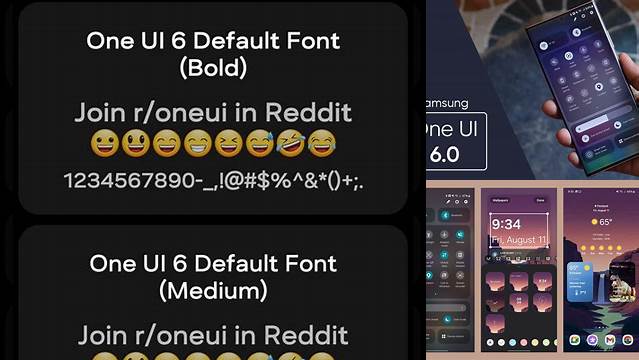
Hey guys! Are you ready to jazz up your Samsung Galaxy phone? If you're anything like me, you're always on the lookout for ways to personalize your device. And what better way to do that than by changing the font? Well, the One UI 6 font is here, and guess what? You can download it free! Let's dive into how you can get this sleek, new look and customize your phone to your heart's content. I'll show you how to download and use the font, plus give you some tips on making your phone truly your own. This article is your ultimate guide to the One UI 6 font, and it's all about making your phone experience as enjoyable as possible.
What is the One UI 6 Font? And Why You'll Love It
So, what's the deal with the One UI 6 font? Simply put, it's the new default font for Samsung devices running the latest One UI 6 update. Think of it as the face of your phone's interface. It's the text you see in your menus, apps, and notifications. The One UI 6 font is designed to be clean, modern, and easy on the eyes. Samsung has put a lot of thought into making the font both stylish and functional. The font has been improved with better readability, and enhanced aesthetics that improve the overall user experience. And believe me, this can make a huge difference in how you interact with your phone daily.
One of the best things about the One UI 6 font is how well it fits into the overall design language of the One UI 6 interface. It's not just about the font itself; it's about how it looks in the context of your entire phone. When you use this font, it works cohesively with the icons, widgets, and overall layout, resulting in a harmonious and pleasant visual experience. It's like getting a complete makeover for your phone's display. With the new font, you'll find that reading text on your phone feels more natural and less straining. Whether you're scrolling through social media, checking emails, or reading a book, the improved readability of the One UI 6 font makes everything more enjoyable. The design of the font is optimized for clarity, ensuring that text is easily discernible even in bright sunlight or low-light conditions. Plus, the font's design is optimized for various screen sizes, ensuring consistent readability whether you're using a compact phone or a large-screen tablet. This level of attention to detail significantly improves the user experience.
Another benefit is that using the One UI 6 font can boost your phone's aesthetic appeal. The sleek and modern look of the font can transform the look of your phone's interface, giving it a more premium feel. The new font provides a fresh and contemporary look that sets your device apart from others. By downloading and using this font, you're not just getting a functional upgrade but a visual enhancement that elevates the overall appeal of your phone. Customizing your phone's font can be a subtle way to express your personality and set your device apart. With the One UI 6 font, you can create a unique visual style that reflects your tastes and preferences. From casual users to tech enthusiasts, everyone can appreciate how a thoughtfully chosen font can significantly enhance their daily phone use experience. This also makes your phone feel more personalized, and it helps you create an interface that resonates with your personal style. The ability to change the font is a simple yet effective way to customize your device and add a personal touch to the user experience.
Tips for Customizing Your Phone with the New Font
Now that you've got the One UI 6 font installed, let's talk customization! You can do so much more than just change the font. Here are a few tips to really make your phone stand out.
- Pair it with a new theme: Don't stop at the font! Pair the One UI 6 font with a matching theme from the Galaxy Themes store. A good theme can change your wallpaper, icons, and overall interface, creating a cohesive look. You can browse through the themes to find one that complements the font. Look for themes that have a modern, clean design, or themes that feature custom icon packs. Experiment with different styles until you find one that feels right. The combination of a great font and a stylish theme can dramatically change your phone's look and feel. Be sure to try out various combinations to see what suits your taste. This can create a unified and visually appealing environment on your phone.
- Adjust the font size: Maybe the default size doesn't quite work for you. Go back to the font settings and adjust the font size to your preference. Make it bigger for easier reading or smaller to fit more text on the screen. Finding the right font size is about finding a balance between readability and aesthetics. Take time to play around with different sizes to find what works best for you. Keep adjusting until you find a setting that looks great and feels comfortable to read in all scenarios. The ability to adjust the font size helps accommodate different vision needs and preferences, making the font experience more user-friendly for everyone.
- Explore other font styles: While you're at it, don't hesitate to explore other font styles available in the Galaxy Themes store or through third-party apps. There might be a font that you like even better! Some fonts are specially designed for readability, others for style, and some for both. Try different fonts to see which one best suits your personal taste and use case. It can be fun to mix things up and try something new. Changing fonts can make your phone feel fresh and exciting again. This can help you discover fonts that might be better aligned with your reading style or preferences. The world of fonts is vast, so it's worth exploring to find the perfect match for your phone.
Sometimes, things don't go as planned. Here are some common issues you might run into and how to fix them.
- Font not showing up: If you've downloaded the font, but it's not appearing in your font settings, try restarting your phone. This can often solve the issue. Also, make sure that you've downloaded the font correctly. If you used a third-party app, check to see if the app has instructions on how to apply the font. Verify that your font download is compatible with your specific device model and One UI version. Sometimes, fonts are not compatible with older software versions, so it is important to ensure compatibility before proceeding. Also, make sure you grant the necessary permissions the app needs to modify your font settings, so it can install the font successfully.
- Font looks strange: If the font looks distorted or incorrect, it may be due to compatibility issues. Try downloading the font from a different source or using a different version of the font. Make sure that your device's software is up-to-date. Sometimes, software updates can help improve font rendering. If you recently updated your phone, this could have caused issues with font display. Check the font settings within your phone to ensure there are no conflicts with the currently applied font style. Also, make sure that you have the correct settings. Changing your display settings can also affect how your font looks. This might cause the font to appear distorted. If the issue persists, try clearing the cache and data for the font app in your phone's settings. This can help fix minor glitches that may affect font rendering.
- App compatibility problems: Some apps might not fully support custom fonts. In such cases, the app will default to its own font, but this won't affect the rest of your phone's interface. If you encounter an app that does not support custom fonts, you can typically still enjoy the benefits of the new font. It's a minor inconvenience and doesn't diminish the overall customization experience. Keep in mind that some applications may not support these changes. So, some apps might still show their original font.
Conclusion: Embrace the One UI 6 Font
There you have it, folks! You now have all the information needed to get the One UI 6 font on your Samsung Galaxy for free. This is one of the easiest ways to personalize your phone and give it a fresh, modern look. So go ahead, download the font, customize your phone, and enjoy the new experience. Remember, the best part about customizing your phone is making it your own. Have fun with it, experiment with different styles, and find what truly reflects you! And, as always, happy customizing! Don't forget to share your favorite customizations with your friends and family. This could inspire someone to create a unique look too. Happy font hunting!